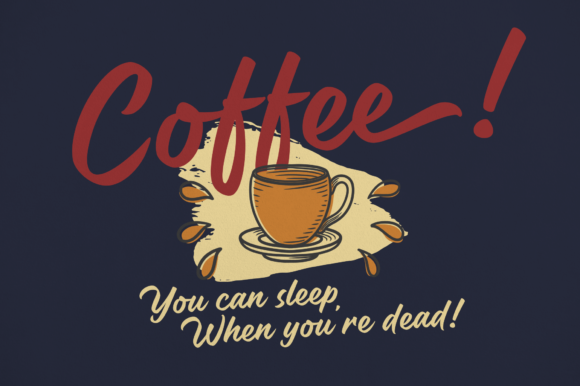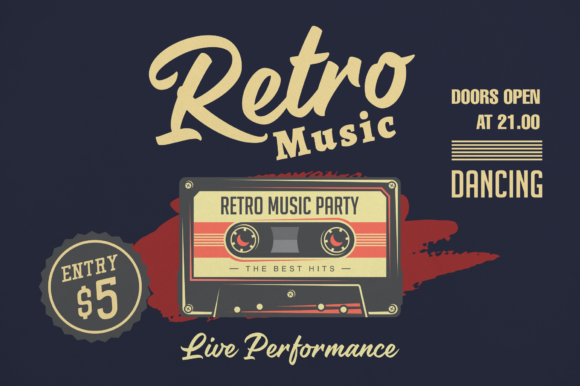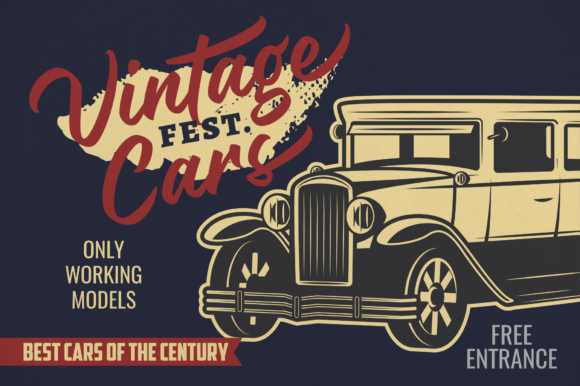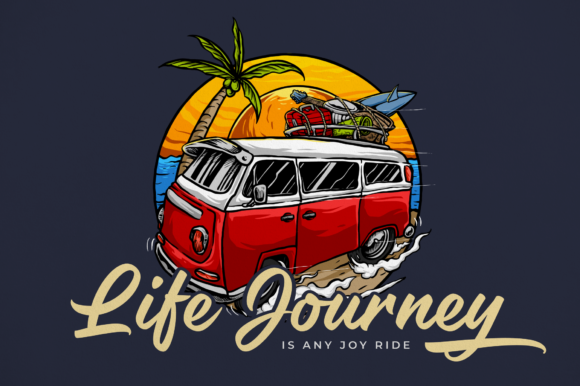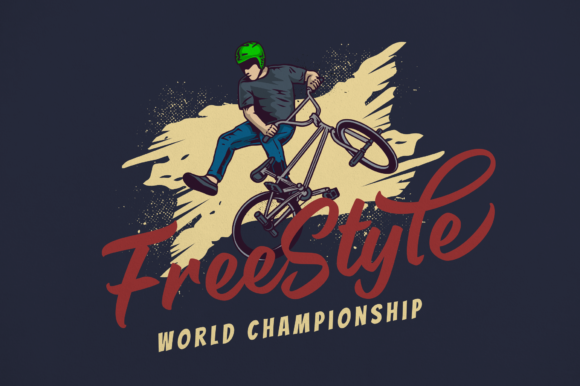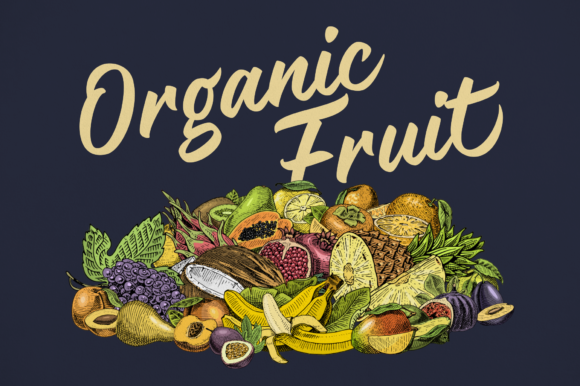
Unleash Your Creativity with the Timeless Billgates Script Font
Have you ever stared at a blank page, trying to find the perfect words to bring your creative vision to life? The blank page can be intimidating, but what if you had the perfect tool to spark your imagination? For designers, the right font can make all the difference. That’s where the Billgates Script Font comes in – a beautiful, vintage-inspired font that’s sure to add a touch of elegance to your designs.
This stunning brushed font is perfect for those looking to add a unique and flowing touch to their work. With its PUA encoding, you’ll have access to all the glyphs and swashes you need to create stunning designs. Whether you’re a seasoned designer or just starting out, the Billgates Script Font is a valuable addition to your toolkit. It’s time to unlock your creativity and let your imagination run wild with this timeless and versatile font.
Bill Gates Script Font Key Features
- Font Style: Script font with a casual, handwritten feel
- Unique Characteristics: The font features a dynamic, cursive design with varying line widths and subtle flair at the ends of strokes
Billgates Script Font Review
When I first saw the Billgates Script Font, I was drawn in by its elegant, flowing design. ✨ It’s clear that the designer has put a lot of thought into creating a font that’s both aesthetically pleasing and functional. One of the things that works well is the way the font handles cursive script. It’s smooth and fluid, making it perfect for creating a sense of sophistication and refinement. ✨
Another strength of the font is its versatility. It’s suitable for a wide range of applications, from titles and headings to body text. It’s also highly customizable, with a range of options for adjusting the style and layout. ✨
- ⚠️ The font can be quite difficult to read at small font sizes, which may make it less suitable for body text in smaller contexts.
- ⚠️ The font may not be compatible with all operating systems or devices, which could cause issues with readability or display.
Overall, I think the Billgates Script Font is a great choice for anyone looking to add a touch of elegance to their design. While it may have some limitations, its strengths far outweigh its weaknesses. With a little creativity and experimentation, I think this font has the potential to be a real showstopper.
The Billgates Script Font is perfect for creating:
- Event branding and signage.
- Product labels and packaging.
- Marketing materials and promotional items.
Alternatives to Billgates Script Font
Billgates Script Font is a unique, handwritten font often used in creative projects. However, if you’re looking for alternatives, here are a few options:
Great Vibes is a modern, cursive script font perfect for headings and titles. It’s highly customizable and has a wide range of ligatures and swashes. Use it for creative projects, such as magazines, posters, and advertisements.
Compared to Billgates Script Font, Great Vibes has a more modern feel and is highly versatile. It’s ideal for projects where you want a clean, sophisticated look.
Carolyna Pro is a elegant, handwritten font with a touch of sophistication. It’s perfect for invitations, wedding designs, and other luxury projects. Use it for creating a high-end look that’s both stylish and elegant.
Compared to Billgates Script Font, Carolyna Pro has a more refined feel and is ideal for projects where you want to convey a sense of luxury and sophistication.
Alex Brush is a beautiful, handwritten font with a touch of whimsy. It’s perfect for creative projects, such as children’s books, menus, and other designs where you want to add a personal touch. Use it for creating a unique and eye-catching design.
Can I use a similar font to Bill Gates Script in my design project?
Yes, you can use a similar font to Bill Gates Script in your design project. There are many fonts available that resemble the Bill Gates Script font, such as Pacifico, Great Vibes, or Carolyna Pro. These fonts can be used for decorative purposes and can give your design a similar look and feel to the original font.